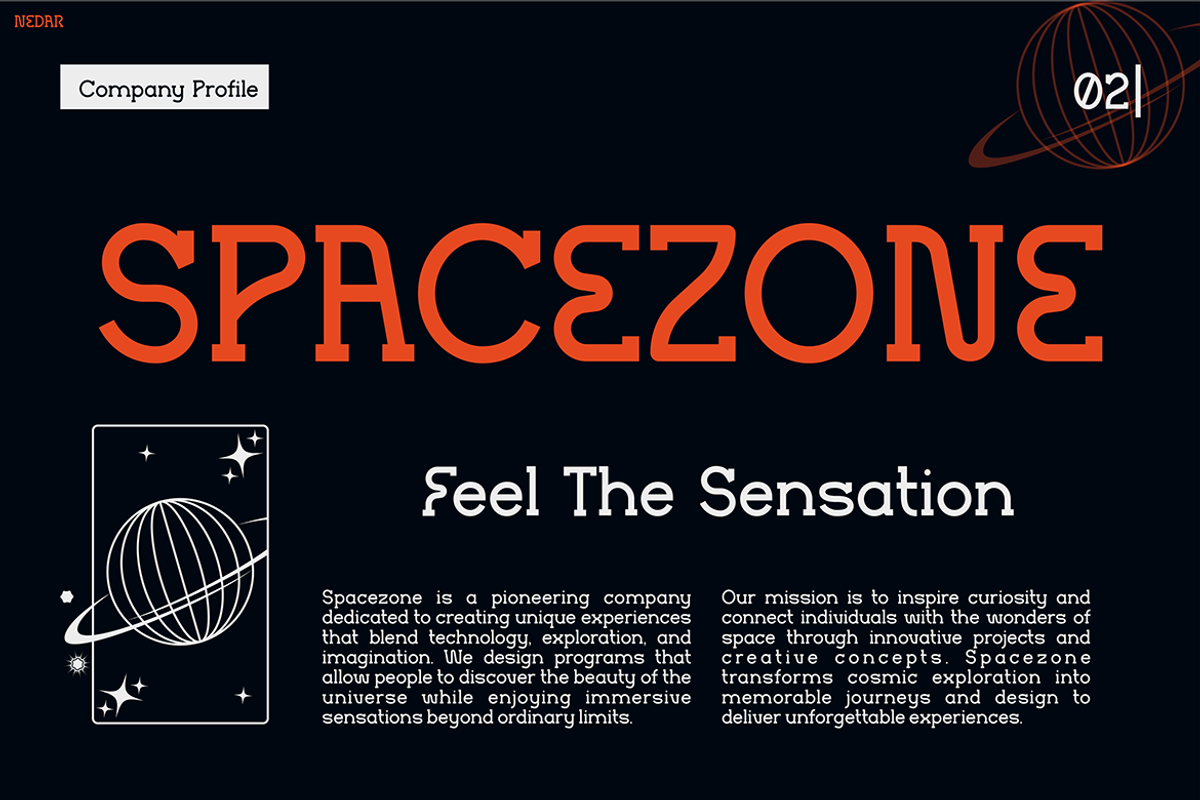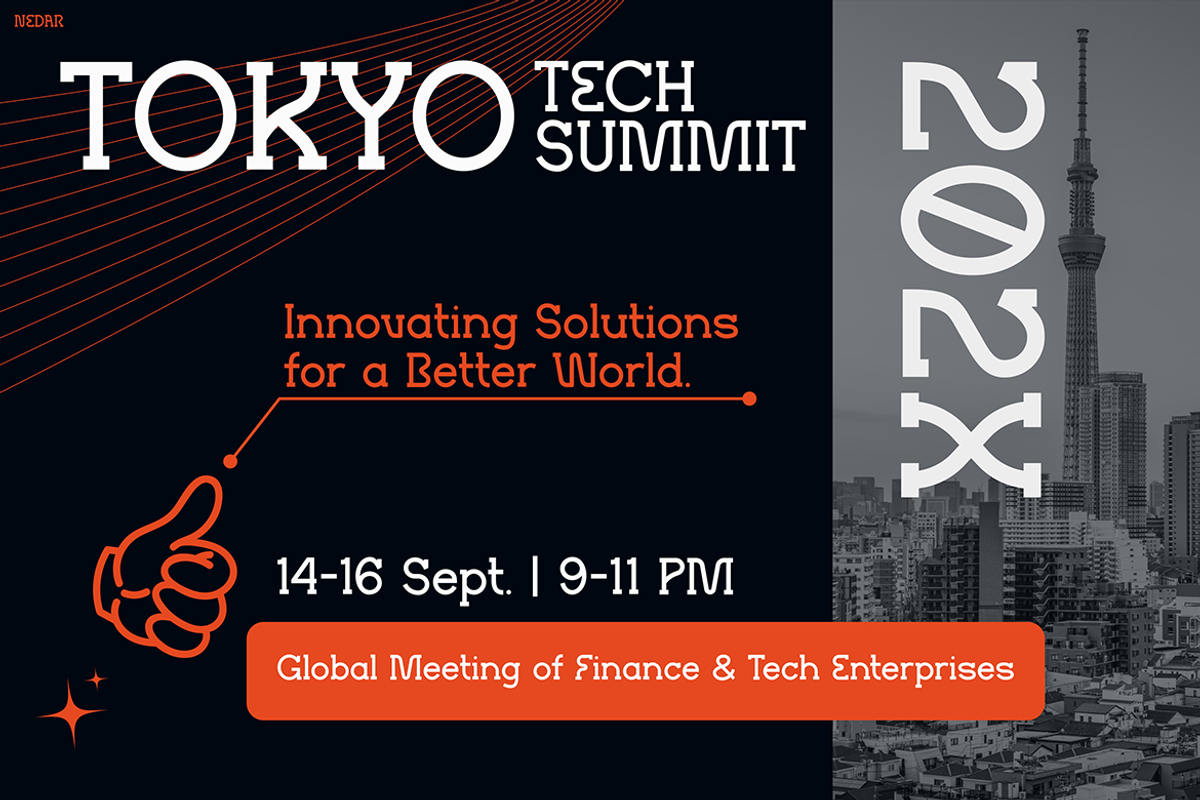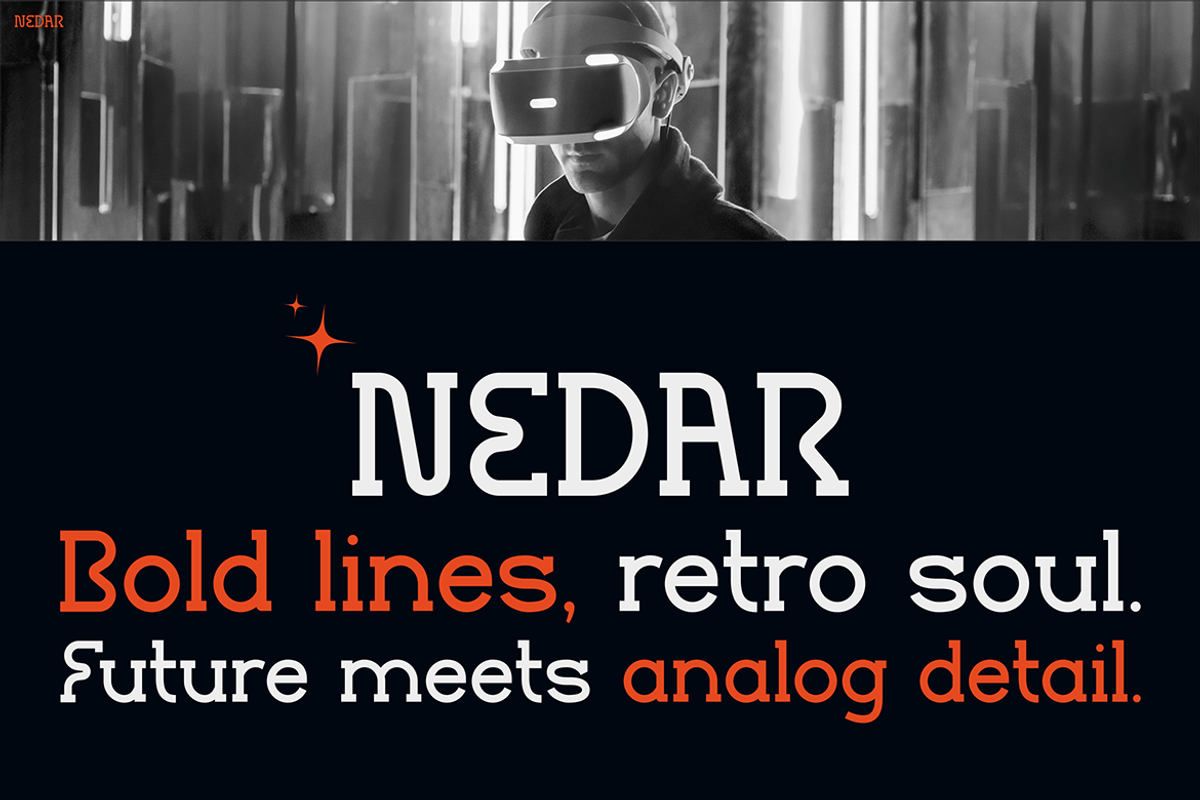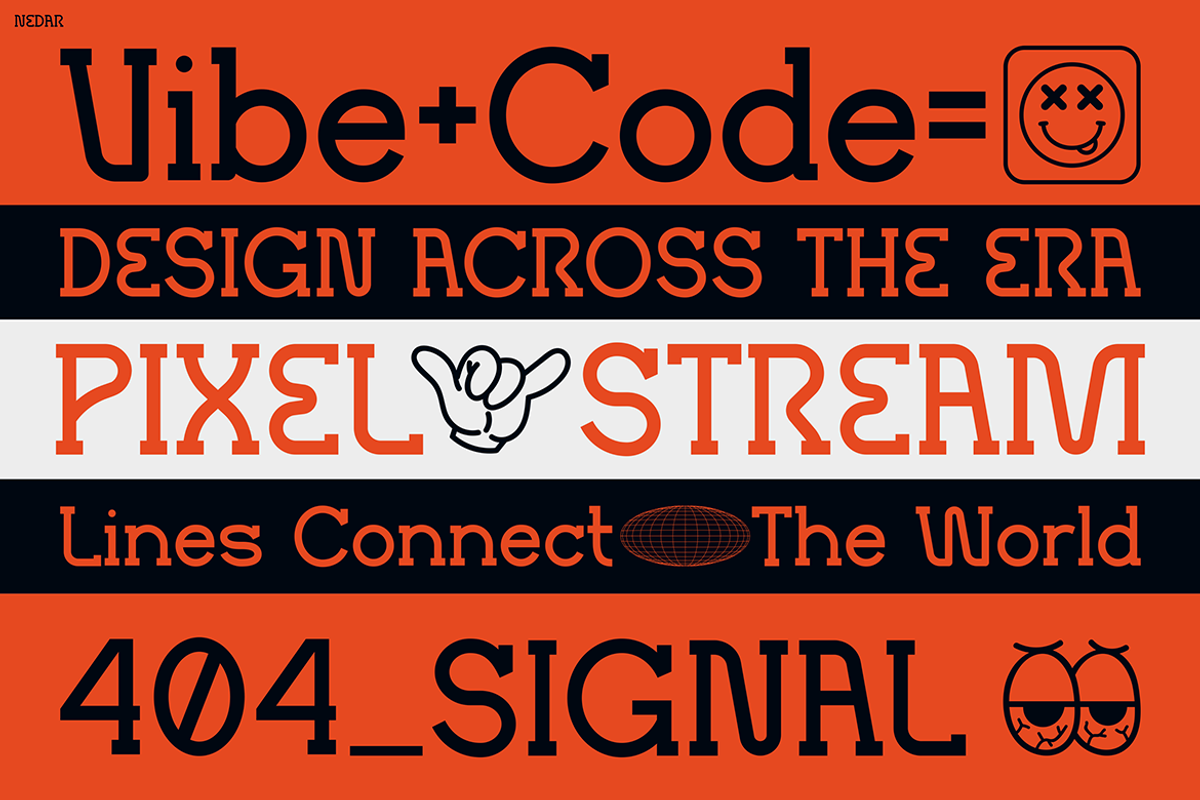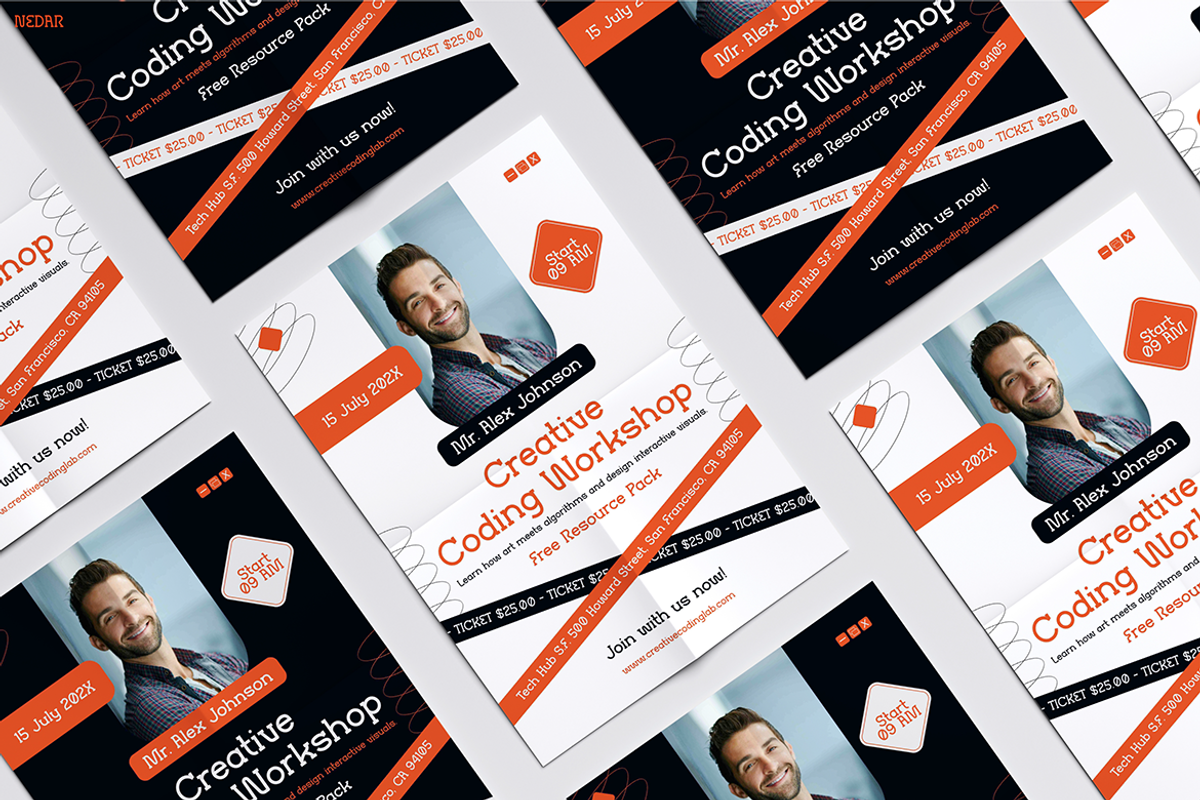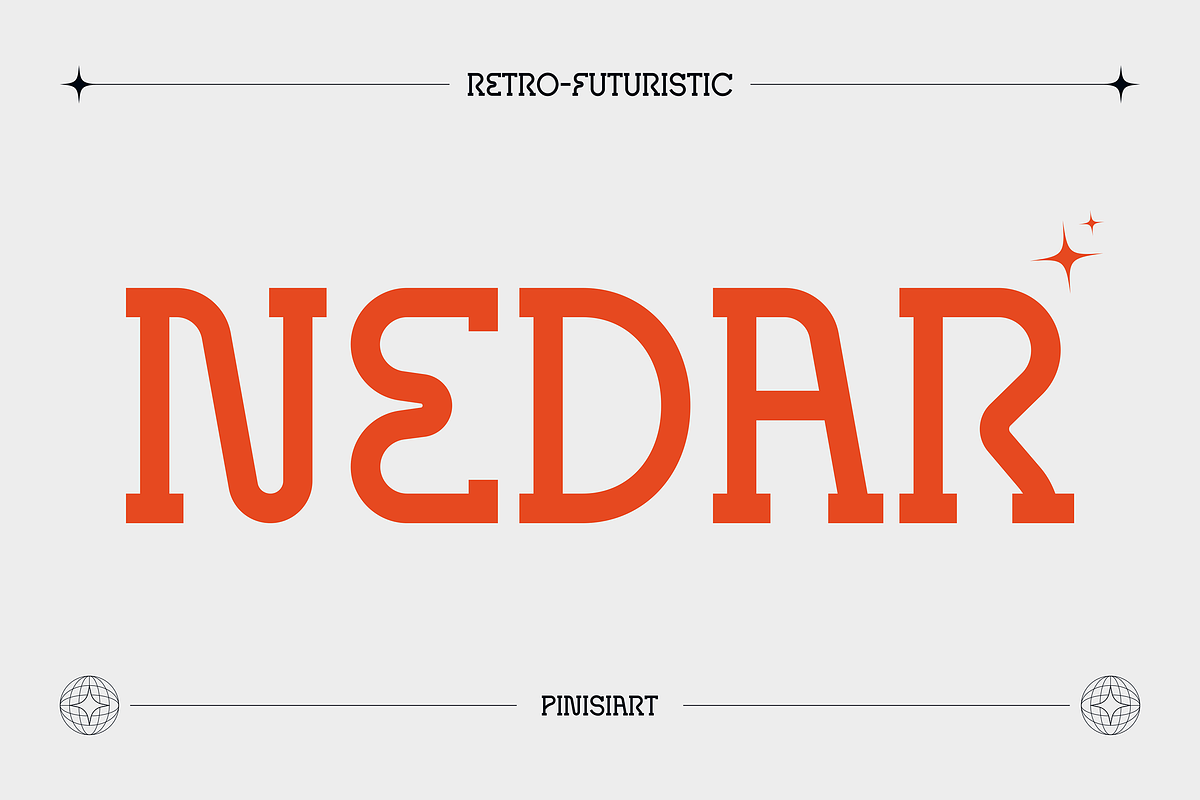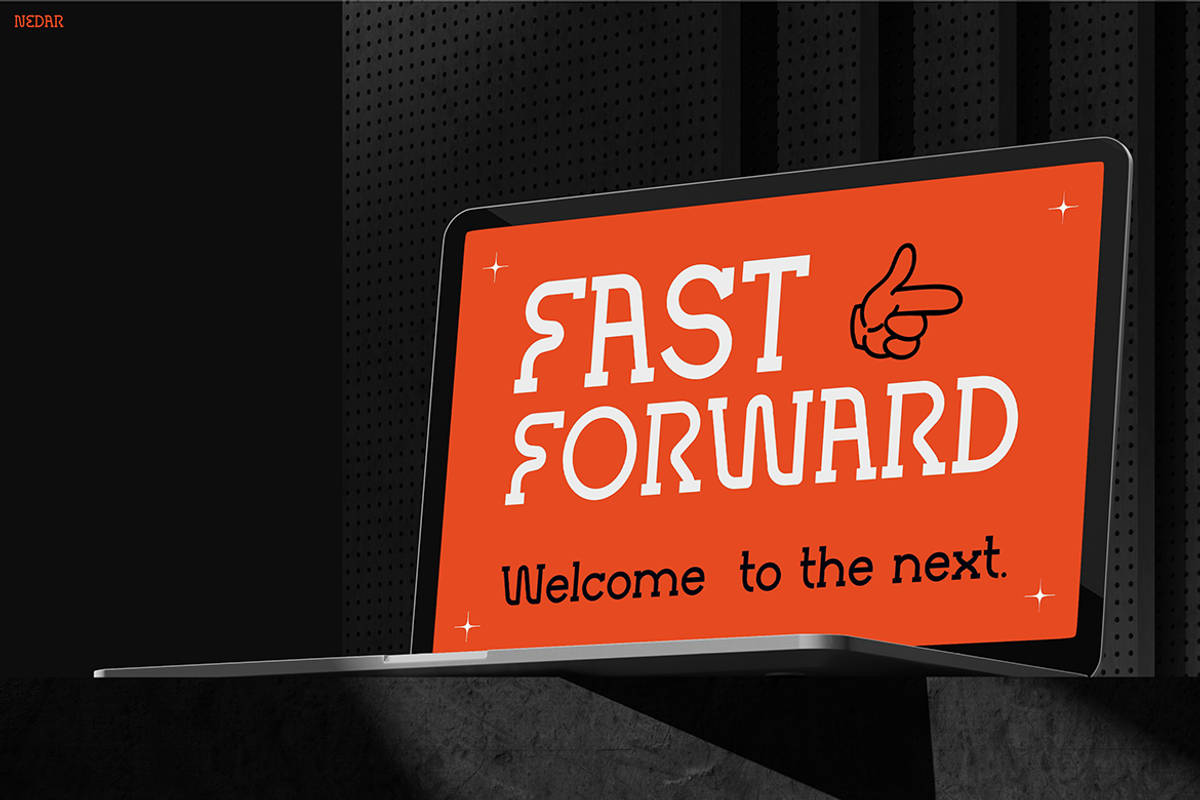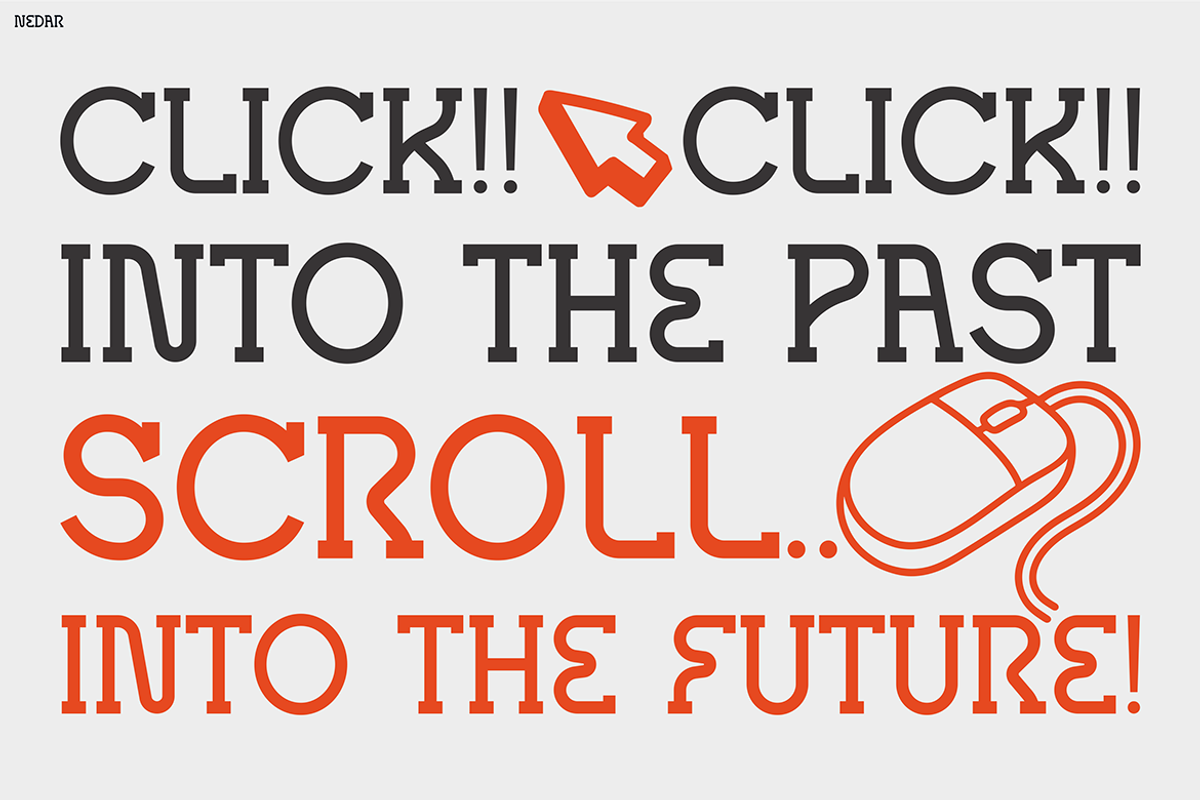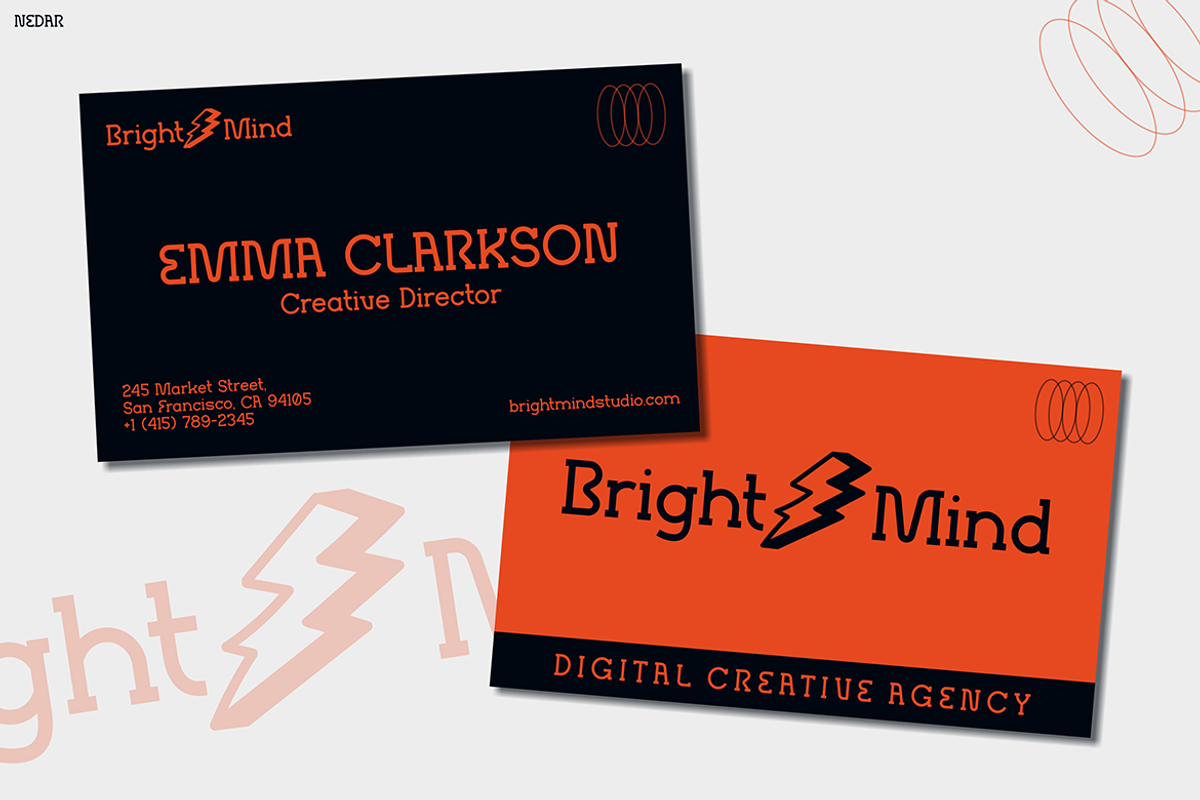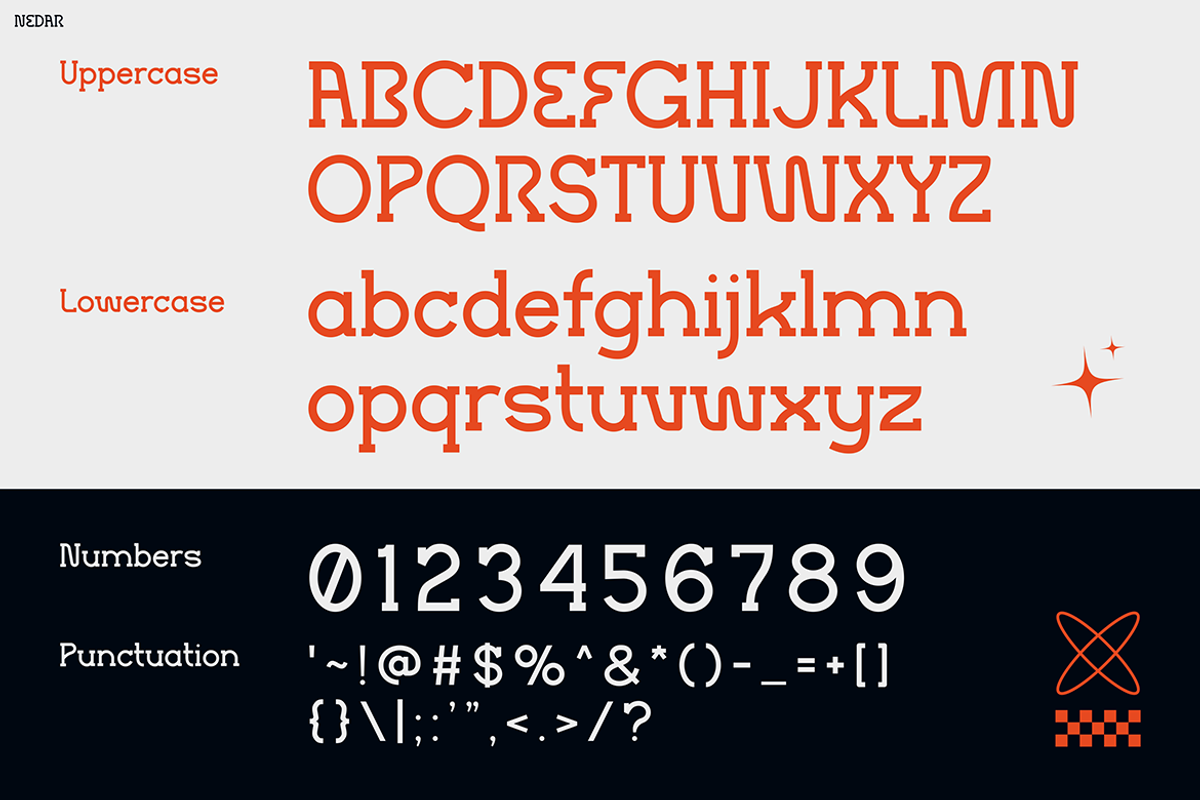
NEDAR
Instagram Font NEDAR brings a retro spirit while adding futuristic precision. Its bold strokes and smooth balance create a font that feels timeless. Moreover, every letter shows unique character, blending analog charm with digital clarity. Therefore, the font works for designers who want something both stylish and professional.
This typeface is highly versatile and adaptable. It looks striking on posters, strong on logos, and fresh on packaging. In addition, it transforms Instagram posts into content that truly stands out. For example, bold captions or promotional graphics gain more attention with NEDAR’s clean lines. As a result, audiences engage more and remember your message longer.